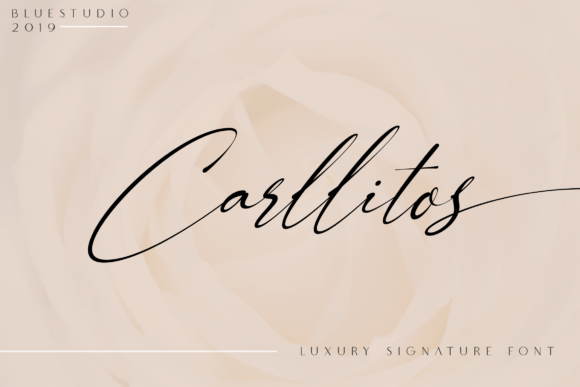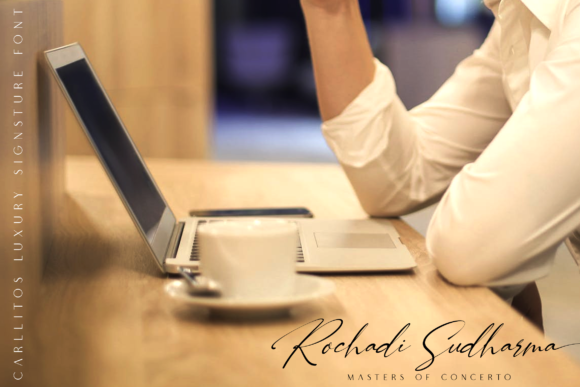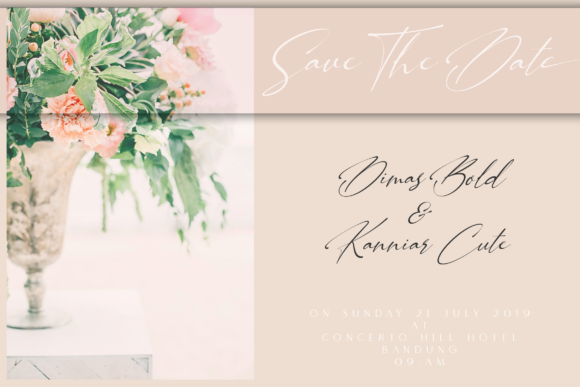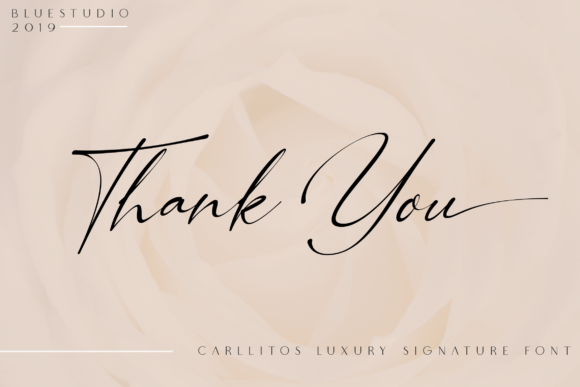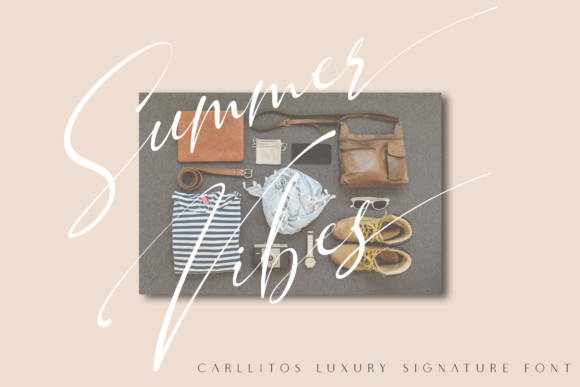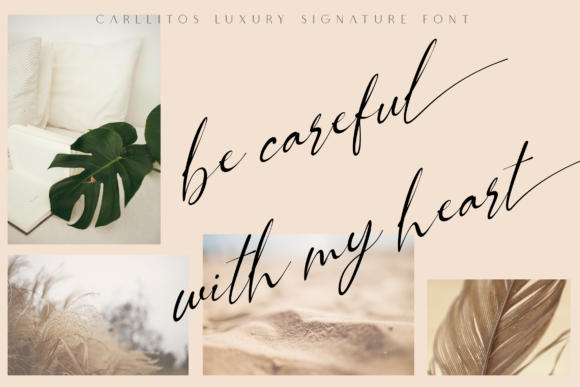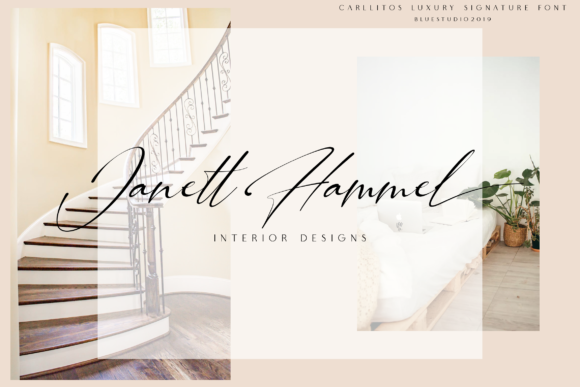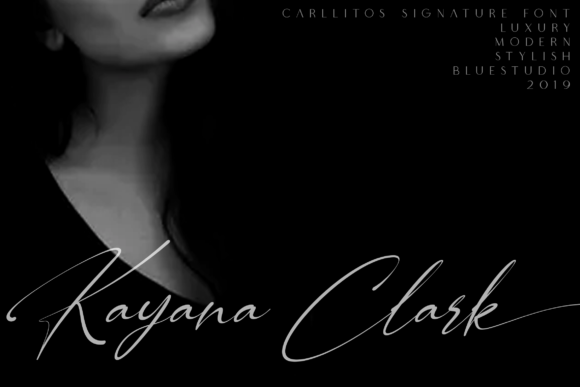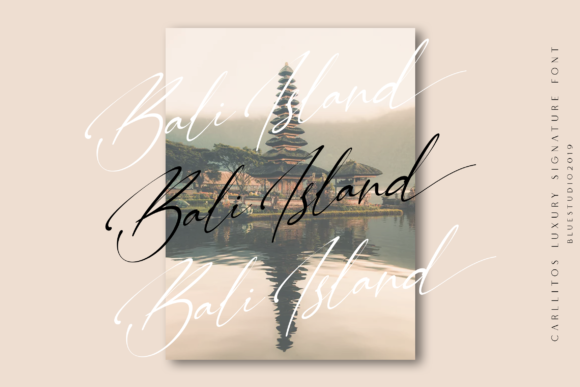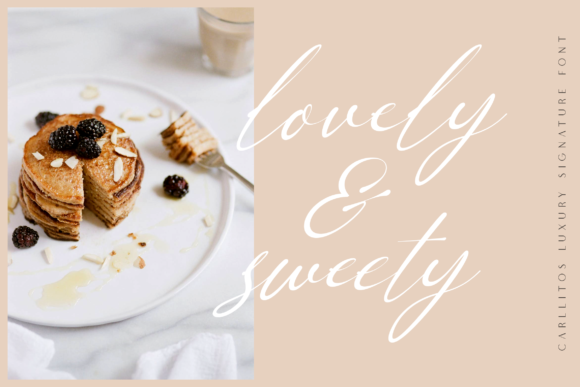
HomeScript FontsCarllitos Font Script Fonts Carllitos Font FacebookXPinterestWhatsApp Carllitos Font Poster 2 Carllitos Font Poster 3 Carllitos Font Poster 4 Carllitos Font Poster 5 Carllitos Font Poster 6 Carllitos Font Poster 7 Carllitos Font Poster 8 Carllitos Font Poster 9 Carllitos Font Poster 10 Carllitos Font Poster 11 Carllitos Font Poster 12 About Carllitos Font Carllitos is a stunning handwritten font with a light feel. Get inspired by its contemporary and authentic vibe. DOWNLOAD ON CREATIVE FABRICAThis font is sold and delivered by Creative Fabrica. Font Canyon may earn a commission if you buy through this link. People also explored Sanctuary Font Hawaii Font Lovanica Font Summer Vintage Font Buttercake Font Sticky Marker Font Hello Sweety Font Playbus Bays Font The Knight Font 312 0 TagsCarllitos Font Previous articleSchramberg FontNext articleSansterdam Font LEAVE A REPLY Cancel reply Comment: Please enter your comment! Name:* Please enter your name here Email:* You have entered an incorrect email address! Please enter your email address here Website: Save my name, email, and website in this browser for the next time I comment. Personal Use Free BD Console Personal Use Free Read more about this font Klotee Personal Use Free Read more about this font Bahjera Personal Use Free Read more about this font Kellana Personal Use Free Read more about this font BLOG Best Fonts for YouTube Videos: Make Your Thumbnails Stand Out Best Fonts for YouTube Videos: Make Your Thumbnails Stand Out Choosing the right font can make a massive difference in how your YouTube videos perform.... Fonts That Capture the Spirit of New York City The 10 Best Handwriting Fonts to Add Personality to Your Designs Top 10 Handwritten Fonts That Elevate Your Designs